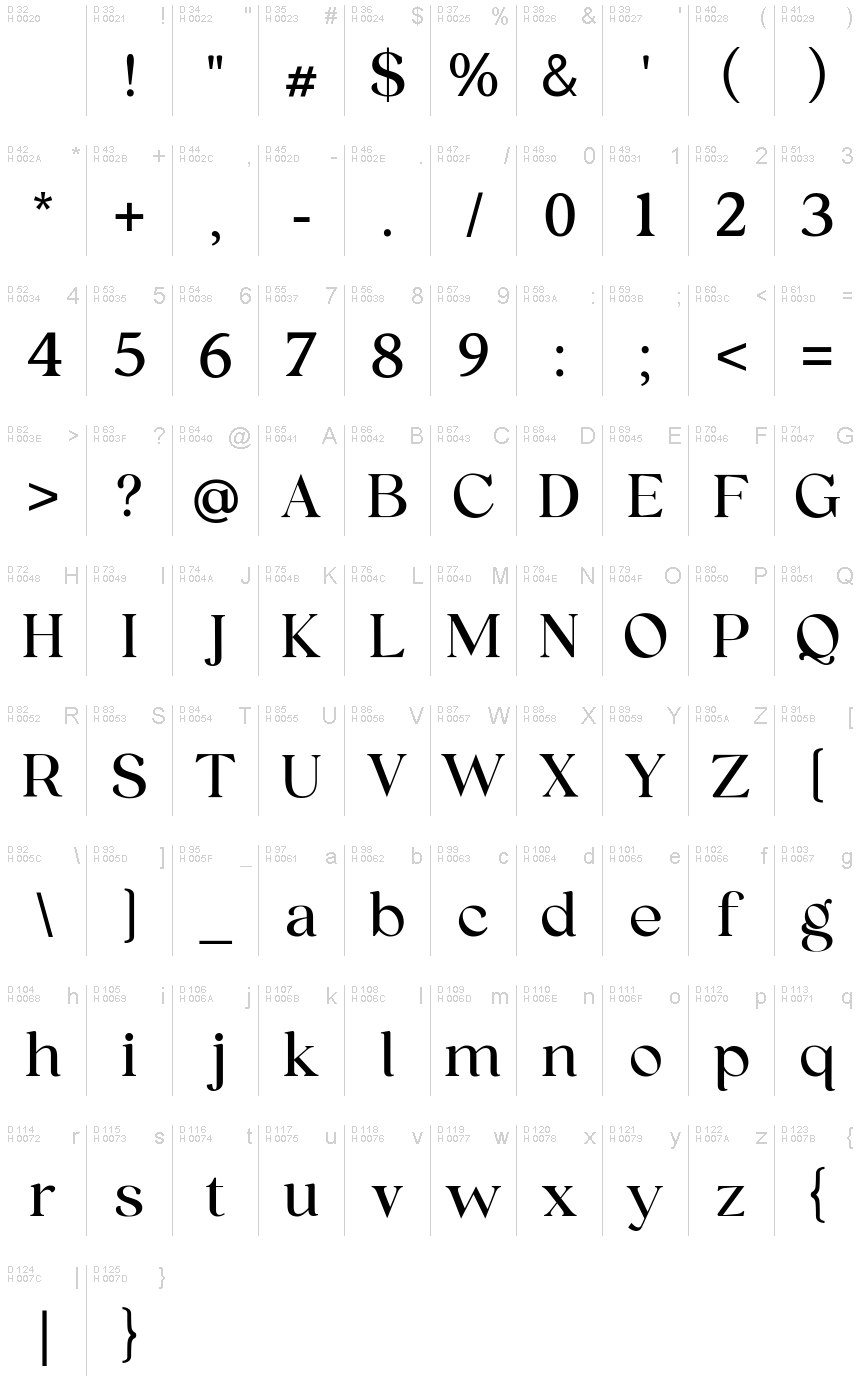
Sasha Marceline
Sasha Marceline is a sophisticated and elegant serif font crafted by UI Creative. With its refined curves and subtle flourishes, this font exudes a timeless sophistication that captivates the eye. The balanced proportions and harmonious letter spacing create a visually pleasing and cohesive typographic experience, making it well-suited for a variety of design applications.
Sasha Marceline's versatility shines through its ability to seamlessly adapt to various design contexts. Its formal and refined aesthetic lends itself well to luxury branding, editorial layouts, and high-end product packaging. Additionally, the font's legibility and classic appeal make it an excellent choice for long-form content, such as books, magazines, and corporate communications, where readability and professionalism are paramount.